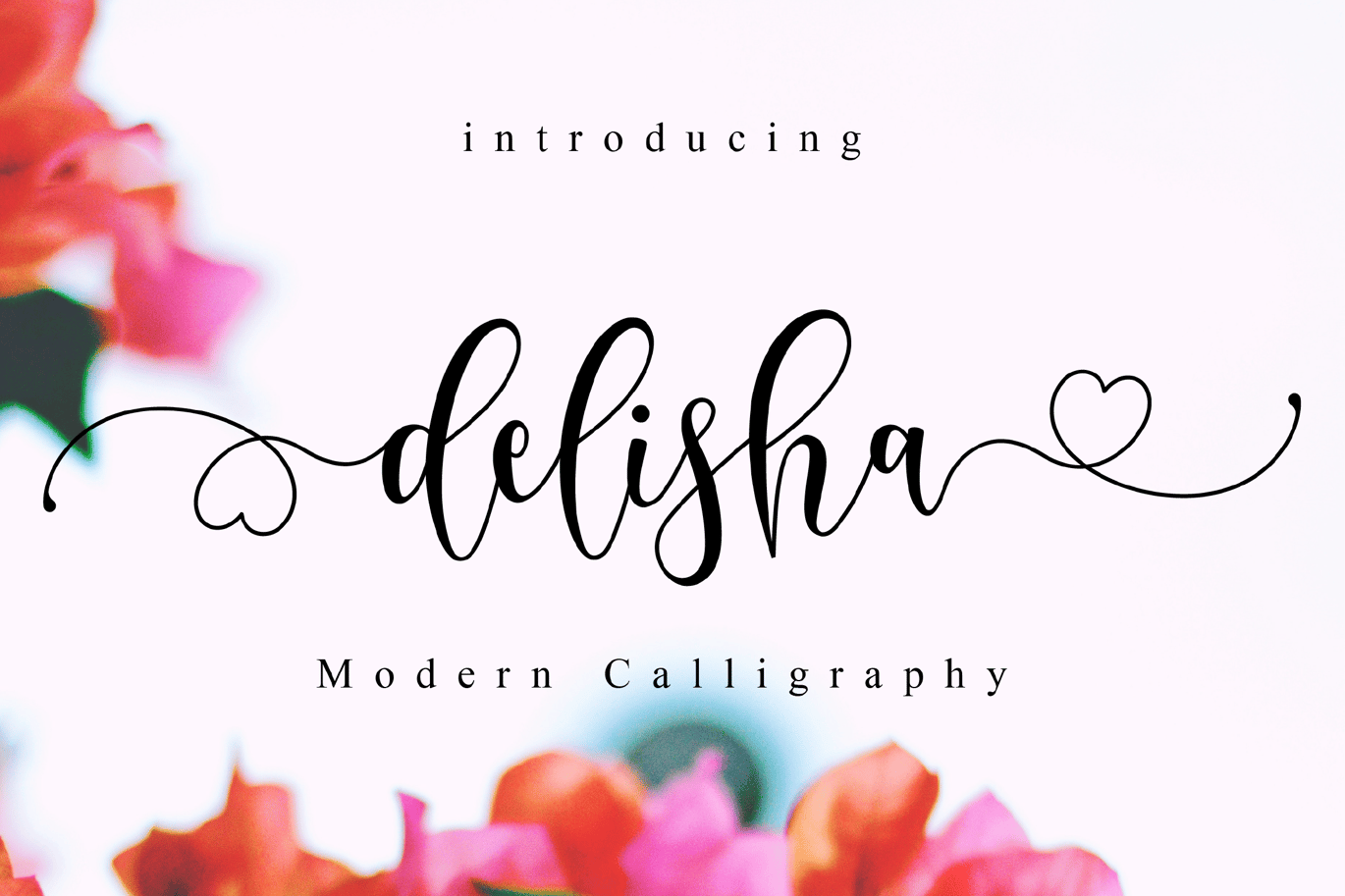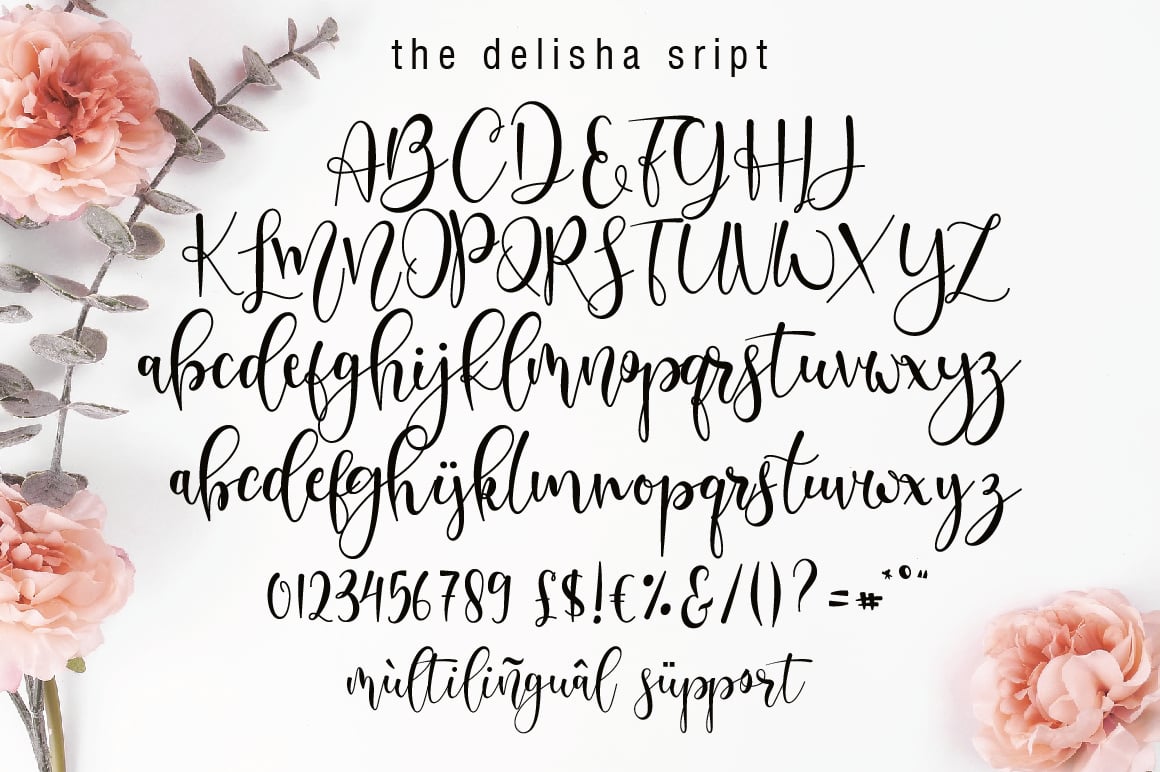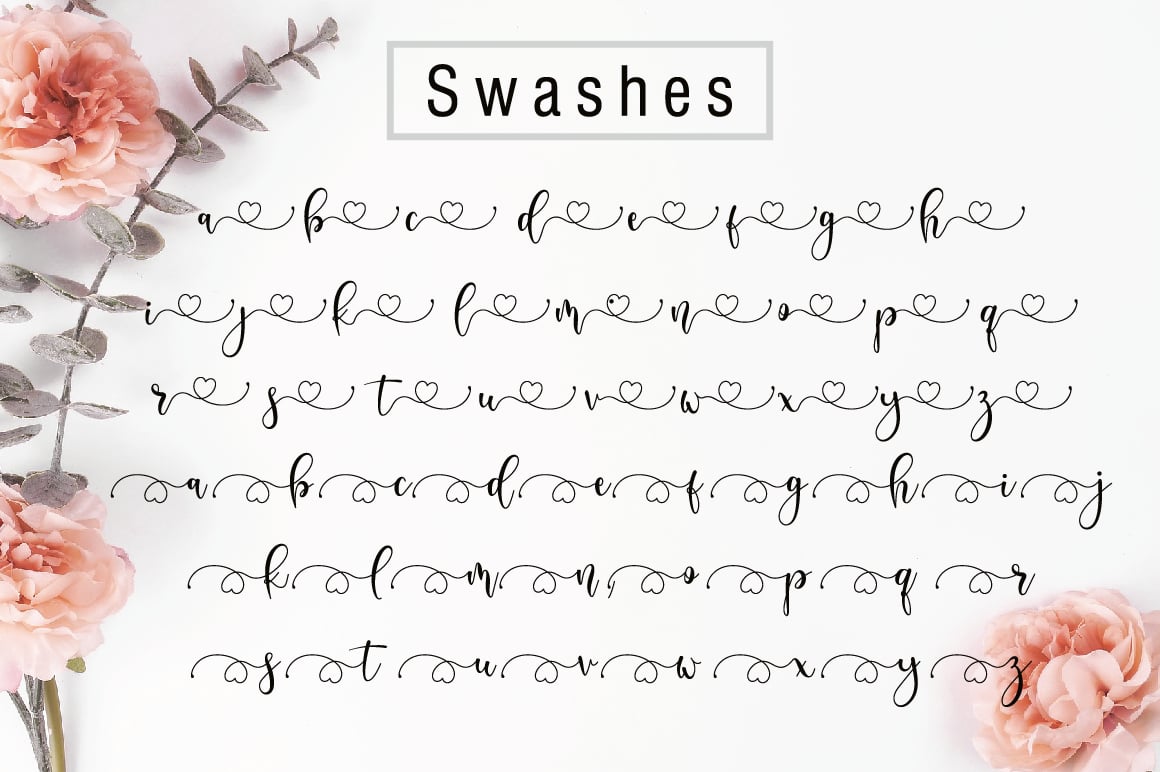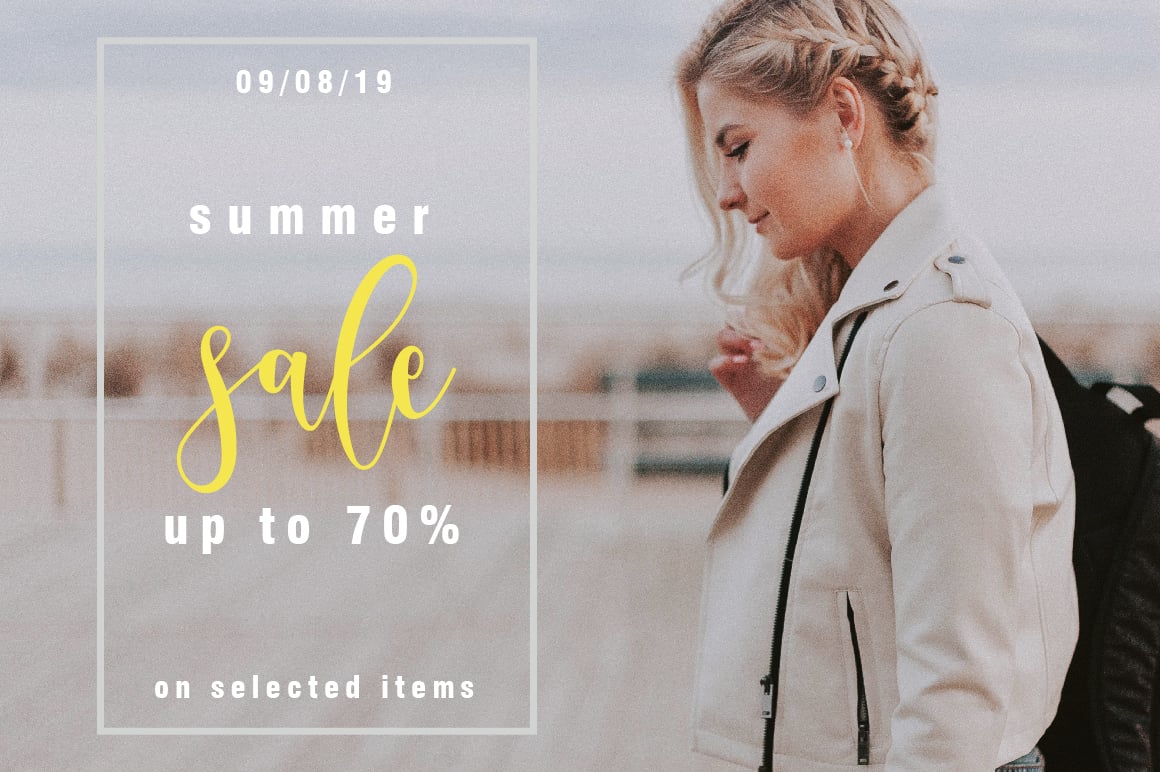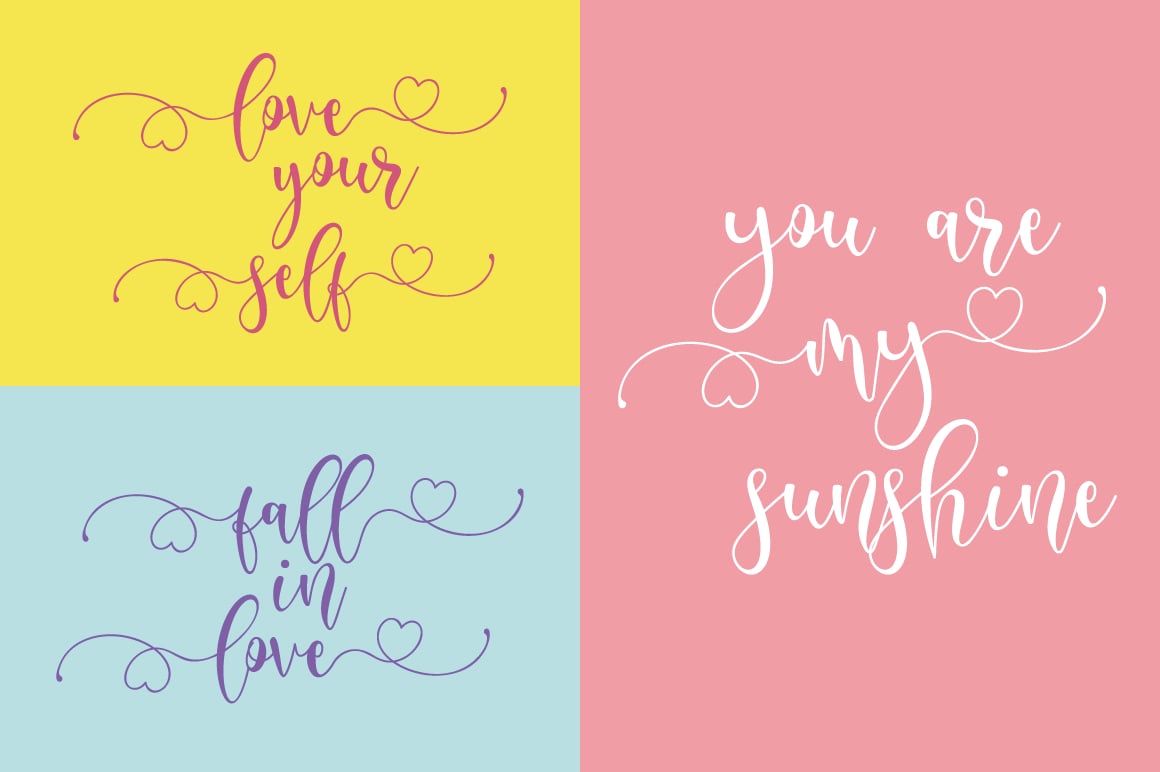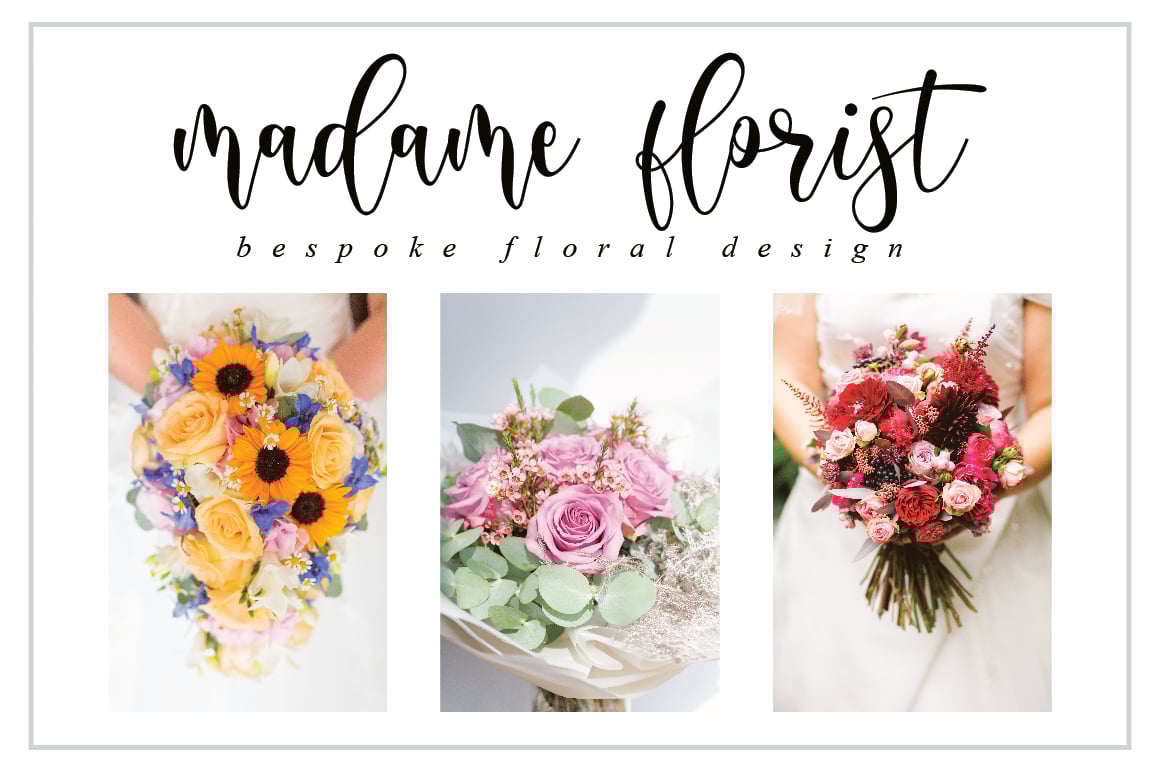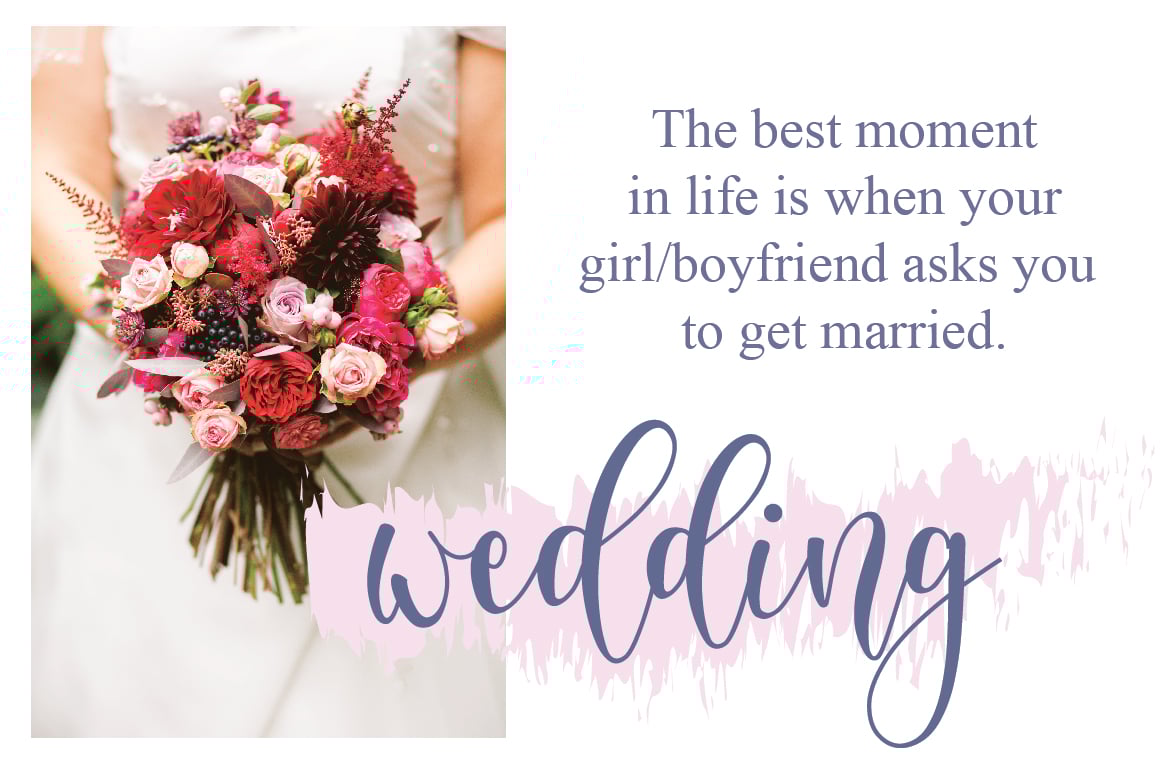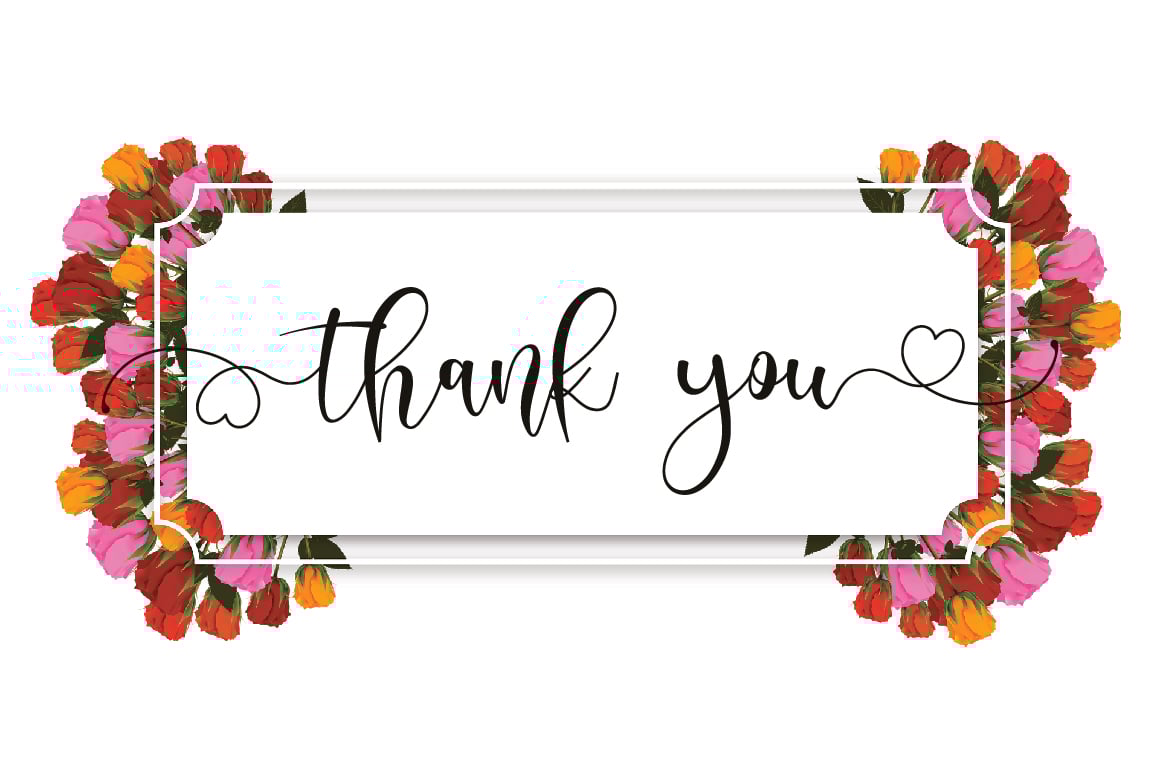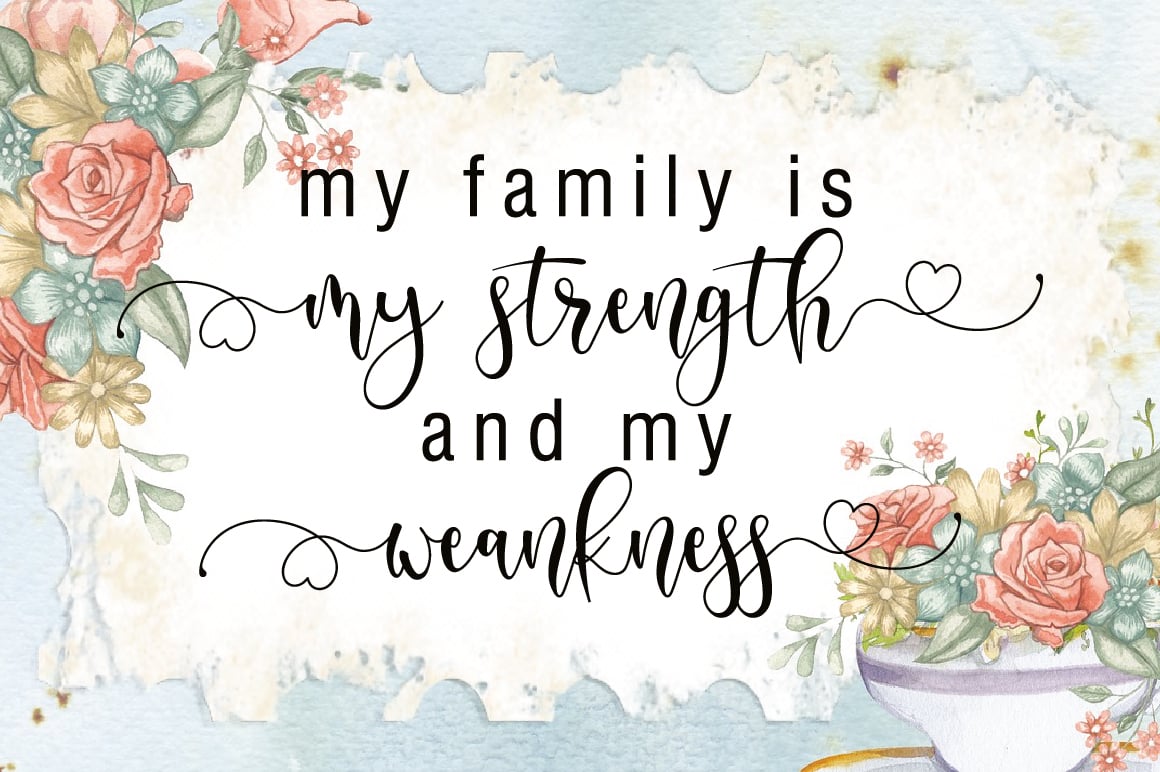
Delisha – Wedding Font
The Delisha is a beautiful script font. It has a classy, elegant, and modern look which can be used for logos, branding, invitations, stationary, wedding designs, social media posts, and every other design which needs a handwritten touch.
Each Font Has:
- Modern Calligraphy Font
- Beautiful Swash (Ending tail)
- Beautiful Titling (Beginning tail)
- Special Ligatures